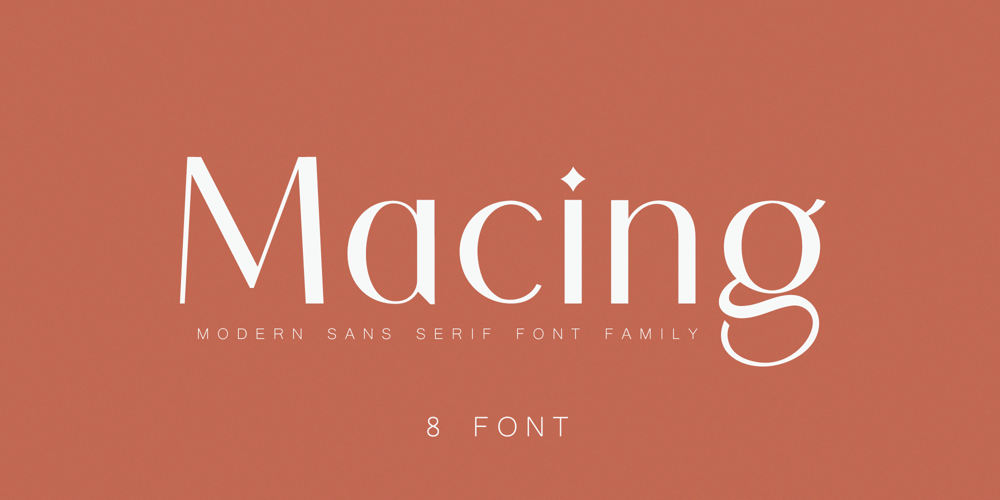
Macing
Macing font
Macing Font Family was designed by Issam Boufelja and published by Issam Type. Macing contains 8 styles and family package options. Macing is a gorgeous sans-serif typeface consisting of 8 weights that is both classically elegant and inherently modern.Macing is perfect to create beautiful wedding invitations, use it as an elegant solution for your next magazine layout, branding projects, Logo design, product packaging, and more!Features: 8 Weights font Uppercase & Lowercase Numerals & Punctuation Accented characters If you have any questions, before or after purchase, please feel free to get in touch.Thank you